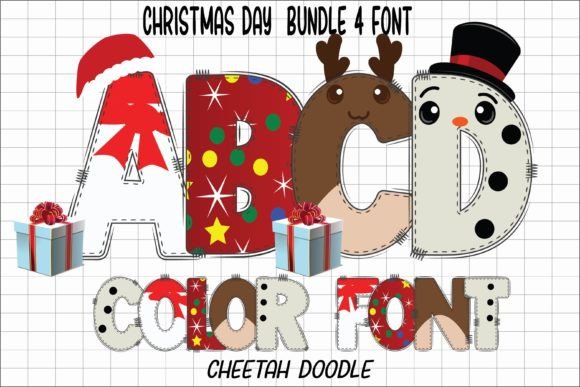
Christmas Day is a cute and festive decorative color font. It will look amazing on all your Christmas-themed designs, shirts, crafts, and cards and will instantly enhance your projects. It will look amazing on all your Christmas-themed designs, shirts, crafts, and cards and will instantly enhance your projects.